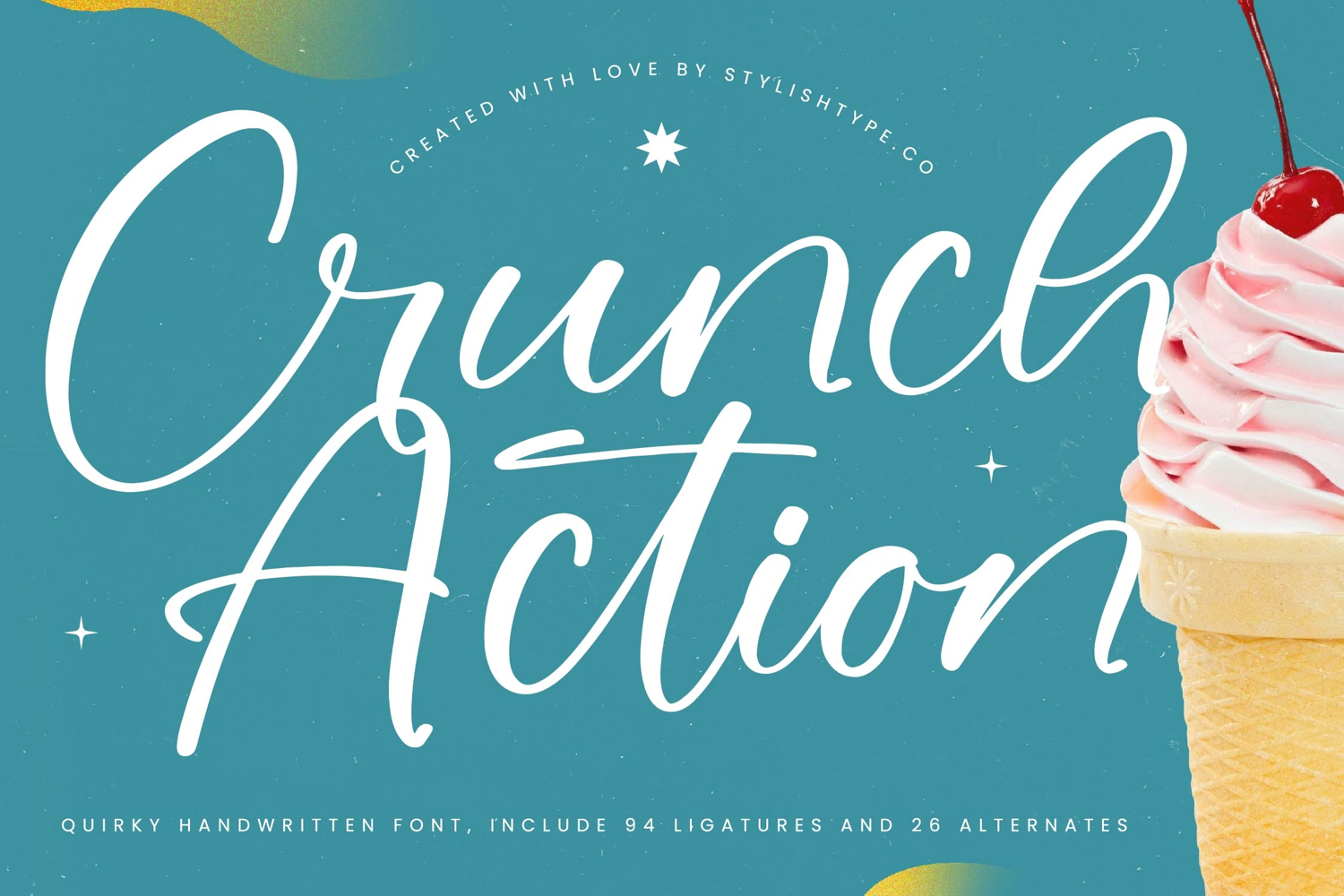
Crunch Action - Quirky Handwritten Font
Crunch Action Italic
Crunch Action
Crunch Action - Quirky Handwritten Font , adapts seamlessly across global markets, making it incredibly versatile for international projects. This robust linguistic capability ensures your message retains its playful yet polished aesthetic, regardless of the language used for your global campaigns.